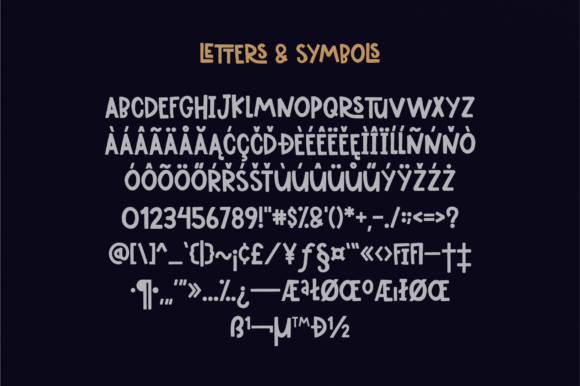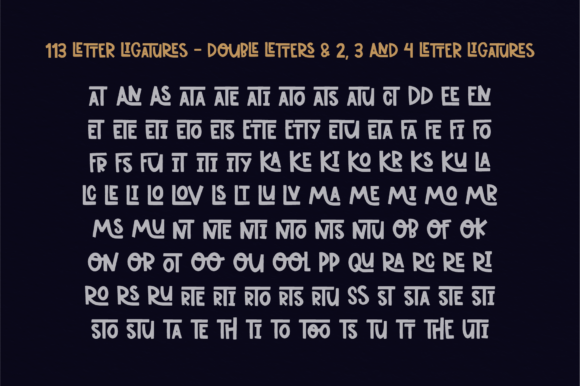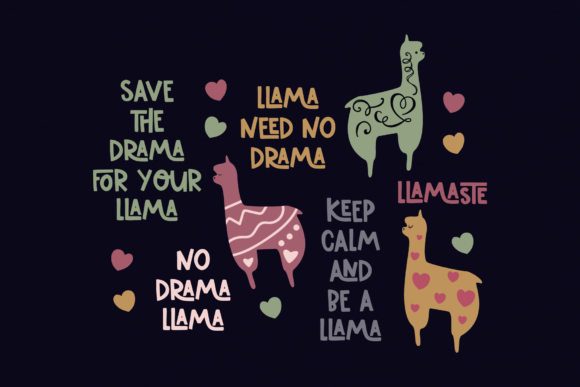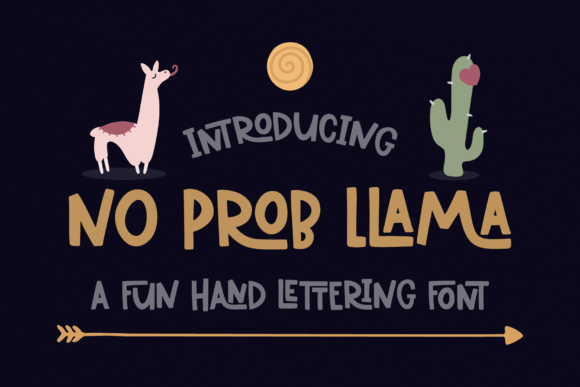
Introduction to No Prob Llama Font
The No Prob Llama is a cute & fun hand lettering font with a lot of combination possibilities.
Its the perfect font to add a playful feel to your designs .